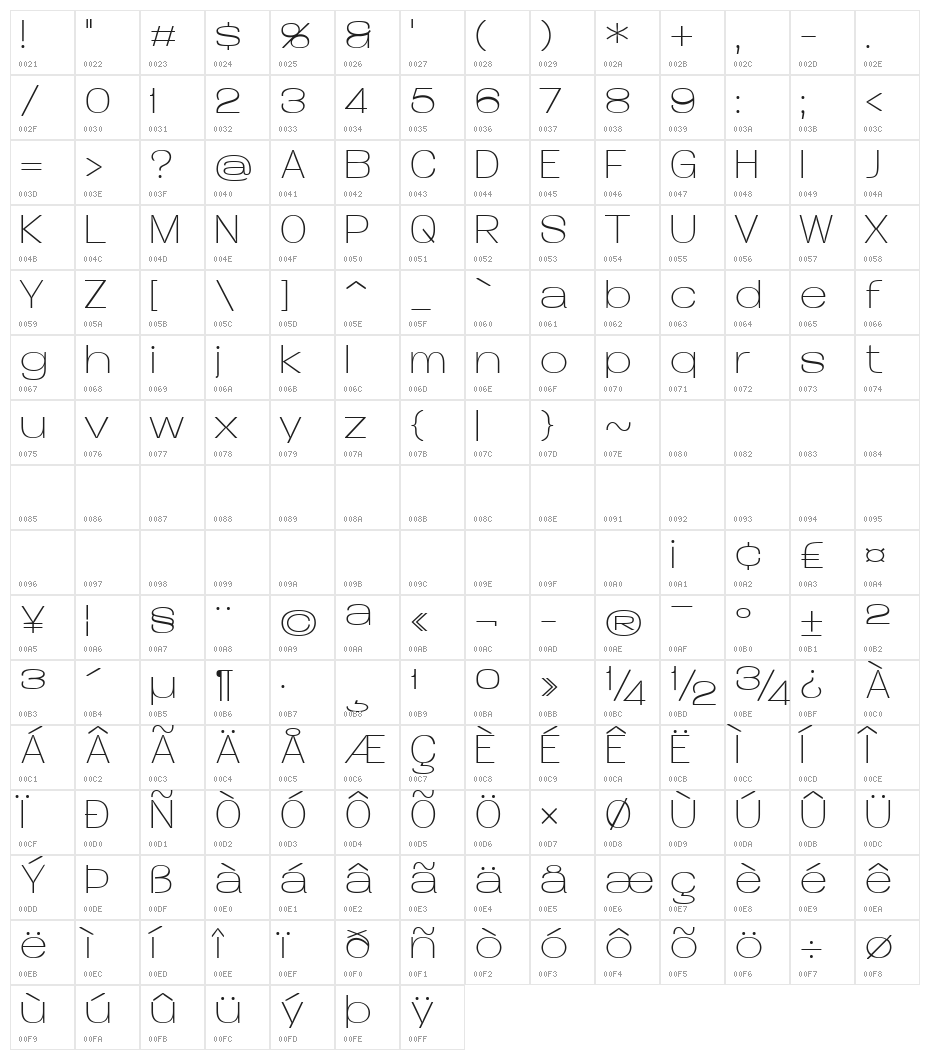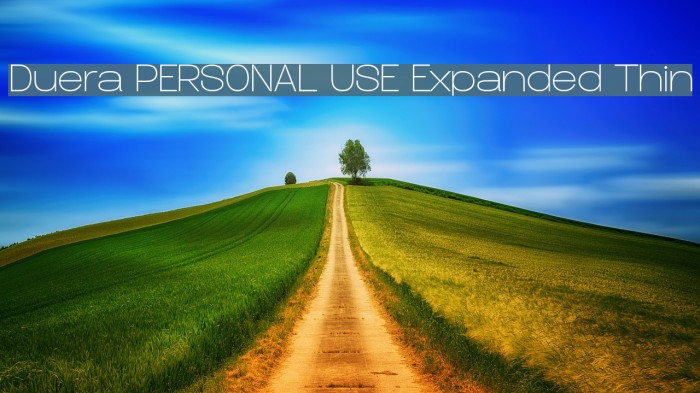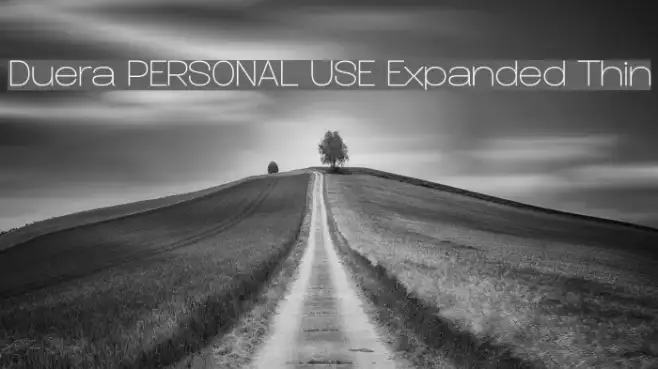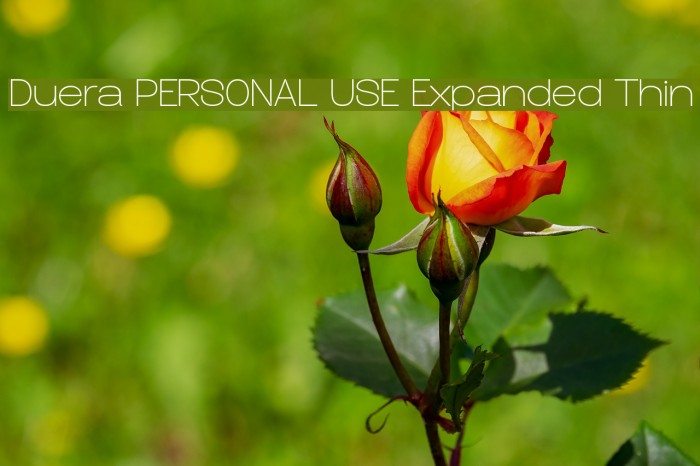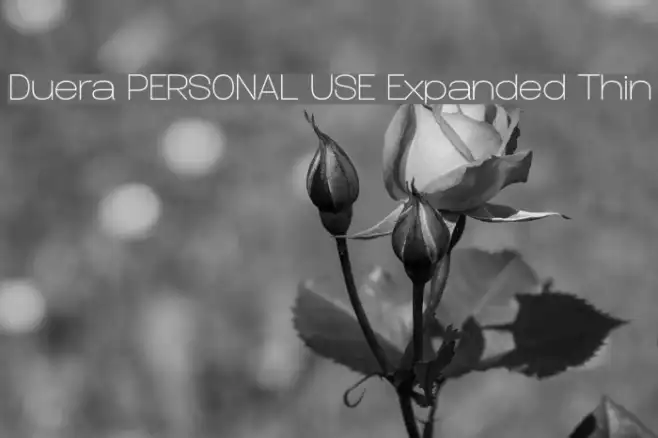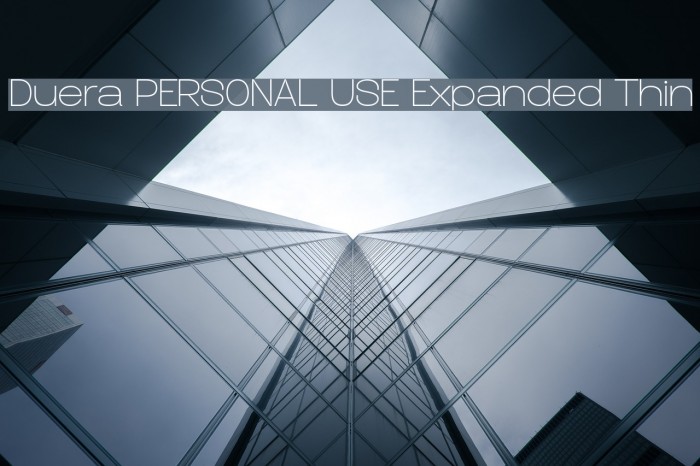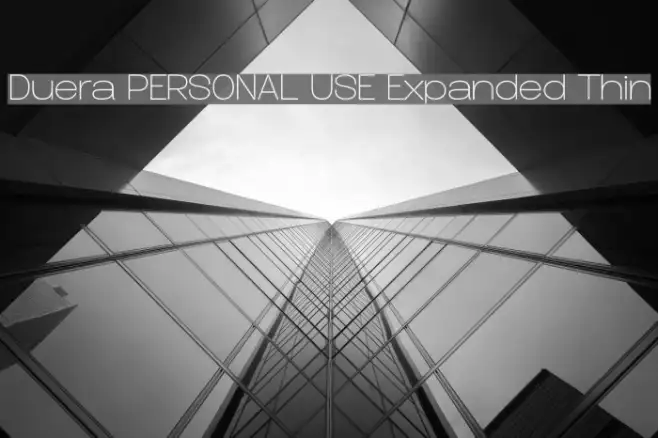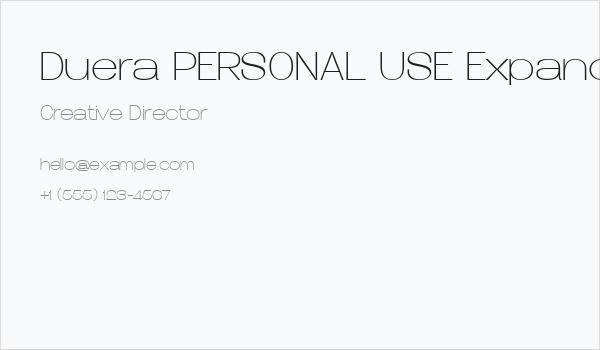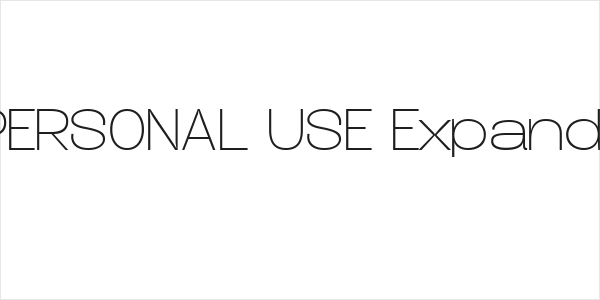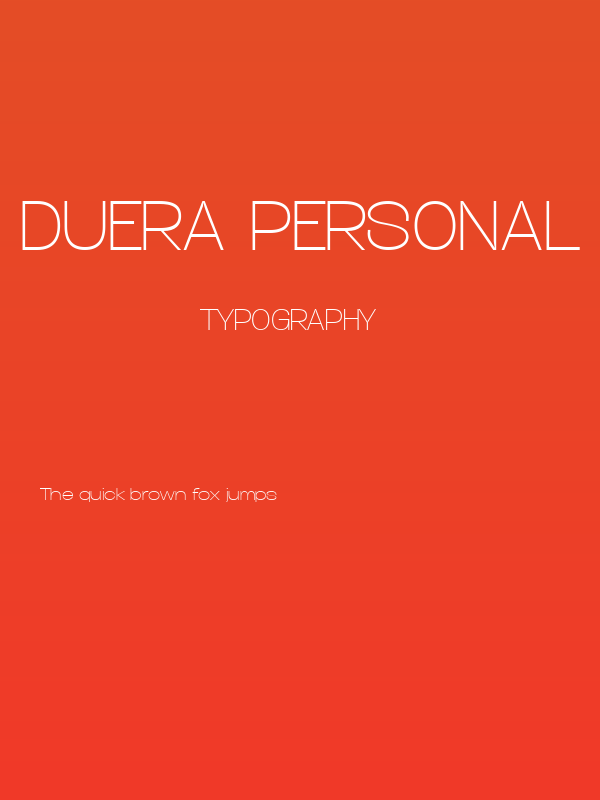
Duera PERSONAL USE Expanded Thin Font
Duera PERSONAL USE Expanded Thin Description
This font features a sleek and modern design with clean lines and an expanded width. The characters are thin, providing an elegant and airy appearance. The uppercase and lowercase letters maintain a consistent style, with rounded edges and minimal contrast in stroke thickness. Numbers and special characters are designed to match the overall aesthetic, ensuring uniformity across different uses. The font's expanded nature makes it suitable for projects that require a contemporary and spacious look.
| Use Case | Headlines, Logos, Web design |
| Proposed Projects | Ideal for modern branding, advertising, and web design projects that require a sleek and spacious aesthetic. |